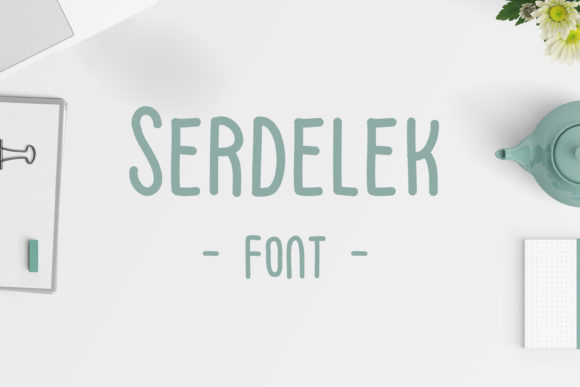
Feast your eyes on Serdelek's joyous dance across the digital canvas, a sans serif font crafted by DIGI Potwor to bring boundless charm and lightheartedness to your creative projects. Step into a world where simplicity and relaxation intertwine, creating a font that adapts effortlessly to a kaleidoscope of designs.
With Serdelek's amiable presence, your words will leap off the screen, igniting smiles and captivating hearts. Its playful curves and smooth edges evoke a sense of carefree delight, making it the perfect font for spreading joy and cheer. Picture your designs adorned with Serdelek's infectious energy, transforming ordinary text into enchanting expressions of creativity.
Dive into the endless possibilities that Serdelek unlocks. Craft eye-catching social media posts that radiate positivity and engage your audience with every scroll. Design vibrant greeting cards that burst with heartfelt sentiments, making each message a cherished keepsake. Create captivating logos and branding that exude warmth and approachability, leaving a lasting impression on your customers.
But Serdelek's magic truly shines when it comes to birthday celebrations. Its joyous spirit perfectly captures the essence of this special day, adding an extra layer of exuberance to your party invitations, decorations, and social media posts. Serdelek transforms birthday messages into heartfelt expressions of love and cheer, making each celebration truly unforgettable.
Embrace the enchanting allure of Serdelek, a font that ignites imagination and sparks joy. Let your creativity soar as you explore its boundless potential. Make Serdelek your font of choice for spreading happiness, connecting with your audience, and leaving an indelible mark on the digital world.